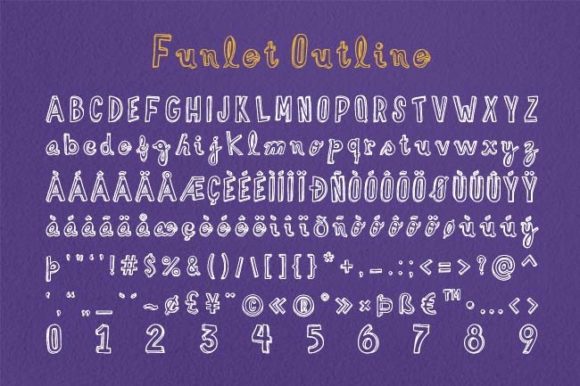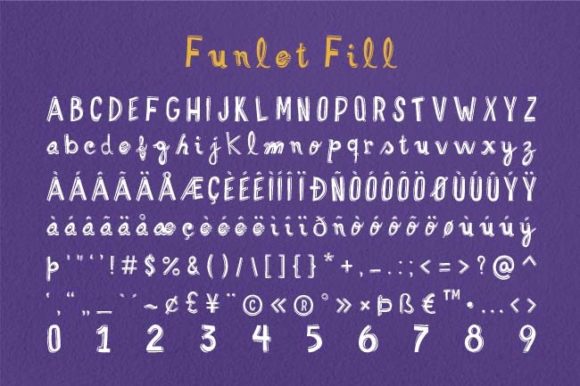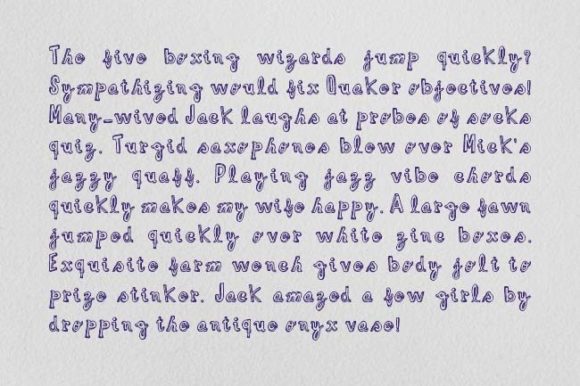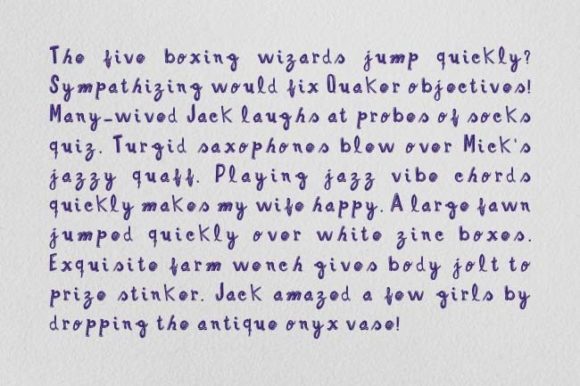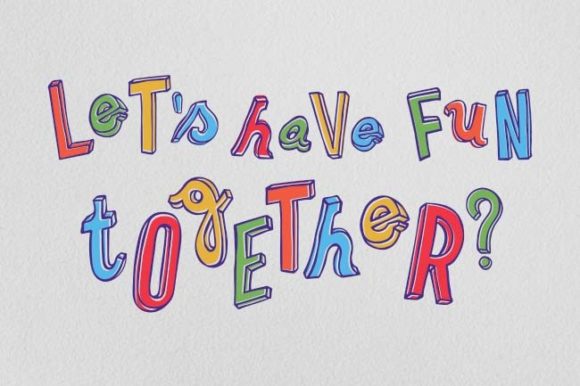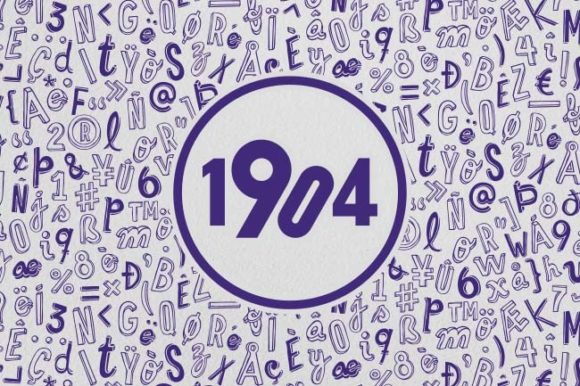
The Font that Stole My Heart: A Deep Dive into Funlet Font
I still remember the day I stumbled upon Funlet Font while working on a project for a client who needed a unique display font. I had spent hours scouring the internet for the perfect font, but nothing seemed quite right. That was until I saw Funlet Font – its neat and simple style immediately caught my eye, and I knew I had found the one. In this article, I’ll share my experience with Funlet Font, its features, and how to make the most of it in your designs.
An Honest Review of Funlet Font
So, what makes Funlet Font so special? Here are a few things I love about it:
- ✨ Unique and quirky design: Funlet Font has a distinct personality that sets it apart from other display fonts.
- ✅ Highly versatile: Its simple yet stylish design makes it suitable for a wide range of projects, from branding to packaging.
- ✅ Easy to read: Despite its unique design, Funlet Font remains highly legible, even at smaller sizes.
Of course, no font is perfect, and Funlet Font has a few small quirks:
- 🤔 Limited language support: Funlet Font may not support all languages, so be sure to check the character set before using it for a project.
- ⚠️ Not suitable for body text: While Funlet Font is great for display purposes, it’s not designed for body text and may not be the best choice for longer blocks of text.
The Story Behind Funlet Font
Funlet Font was designed with the goal of creating a unique and versatile display font that could be used in a variety of contexts. The designer, inspired by the world of art and design, aimed to create a font that was both fun and elegant. With its neat and simple style, Funlet Font has become a popular choice among designers and crafters.
| Font Name | Funlet Font |
| Author | 1904 Studio |
| What is Funlet Font best used for? | Funlet Font is best used for display purposes, such as titles, headings, and branding. |
| Can I use Funlet Font for body text? | No, Funlet Font is not designed for body text and may not be the best choice for longer blocks of text. |